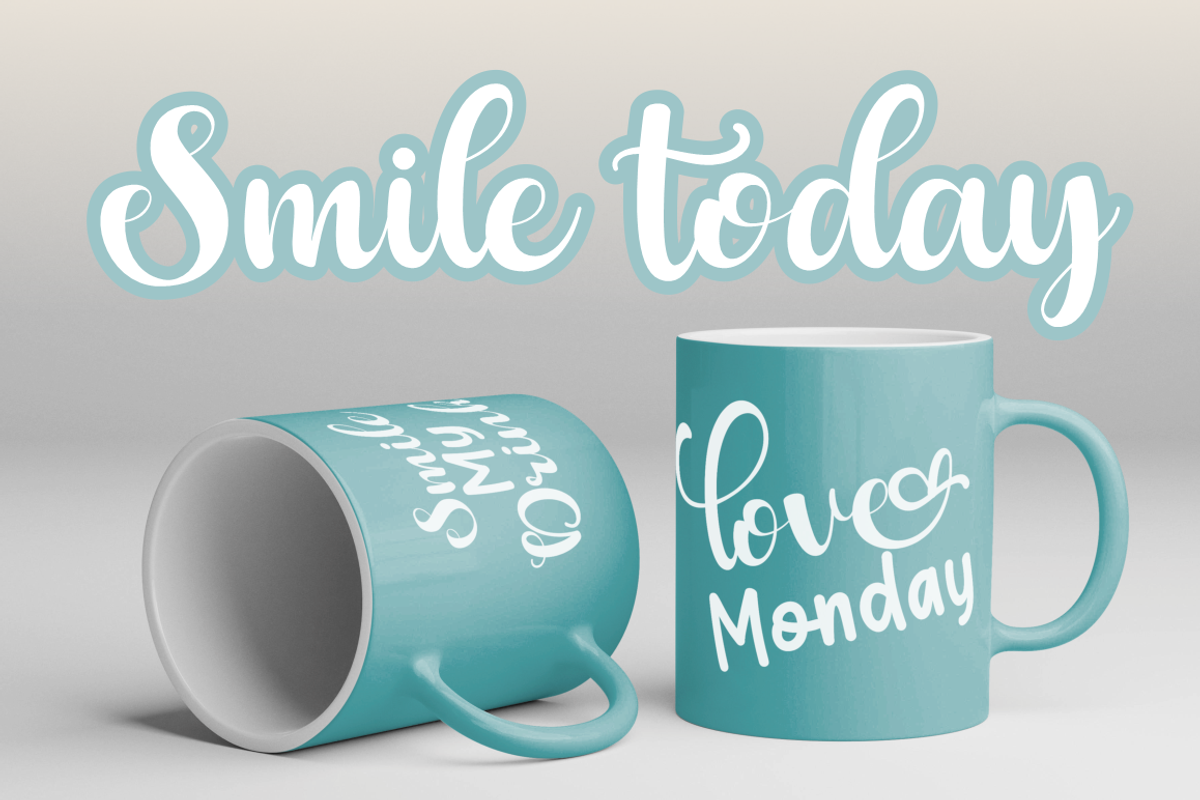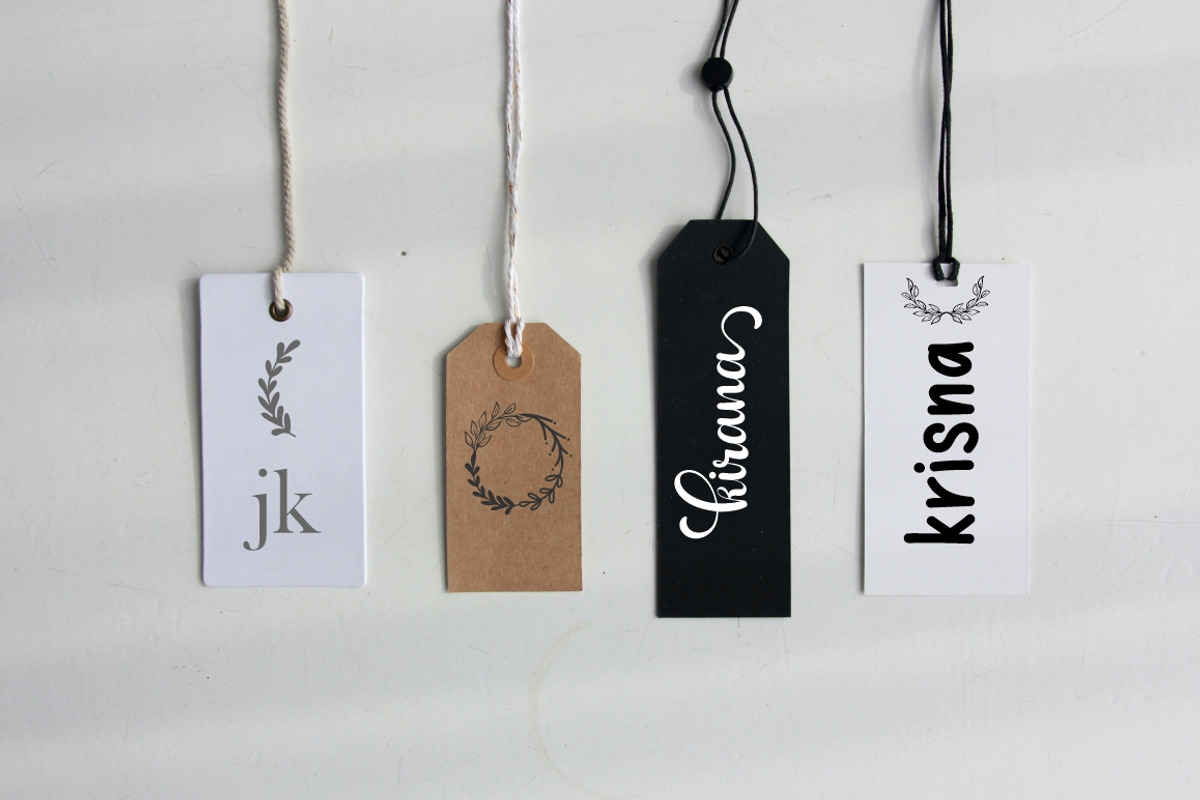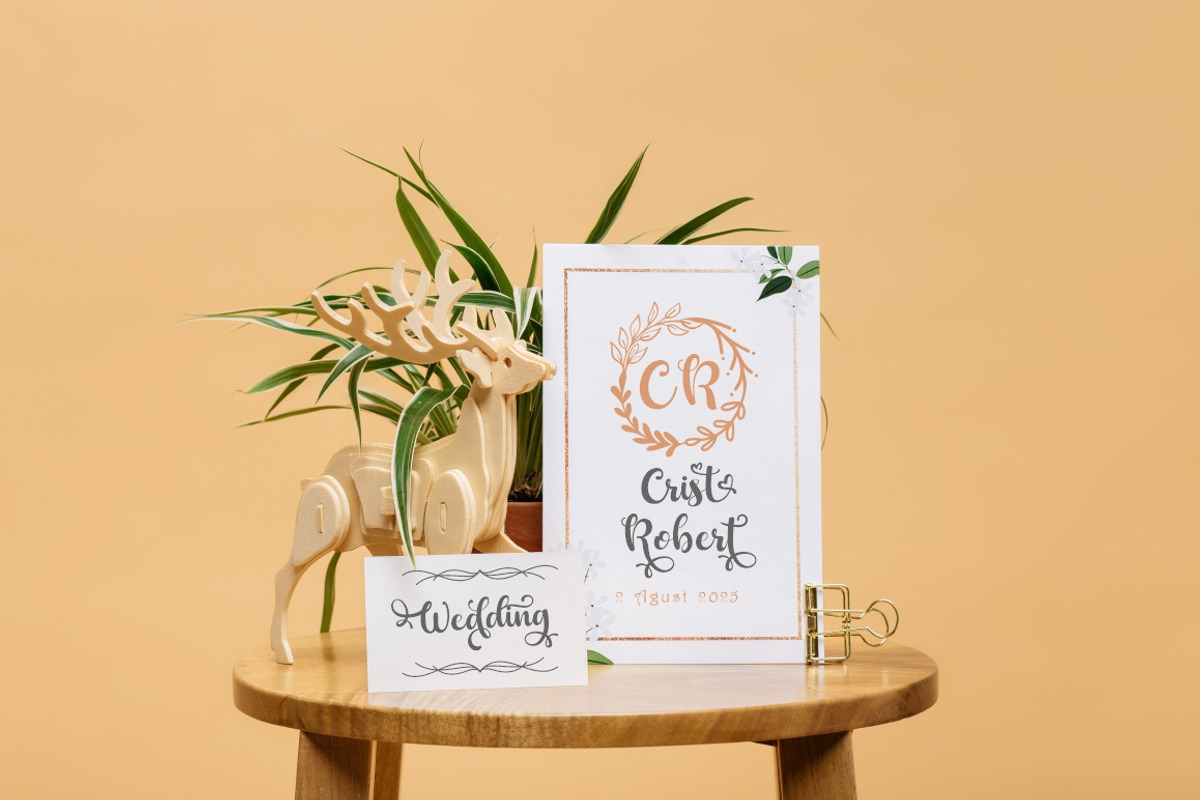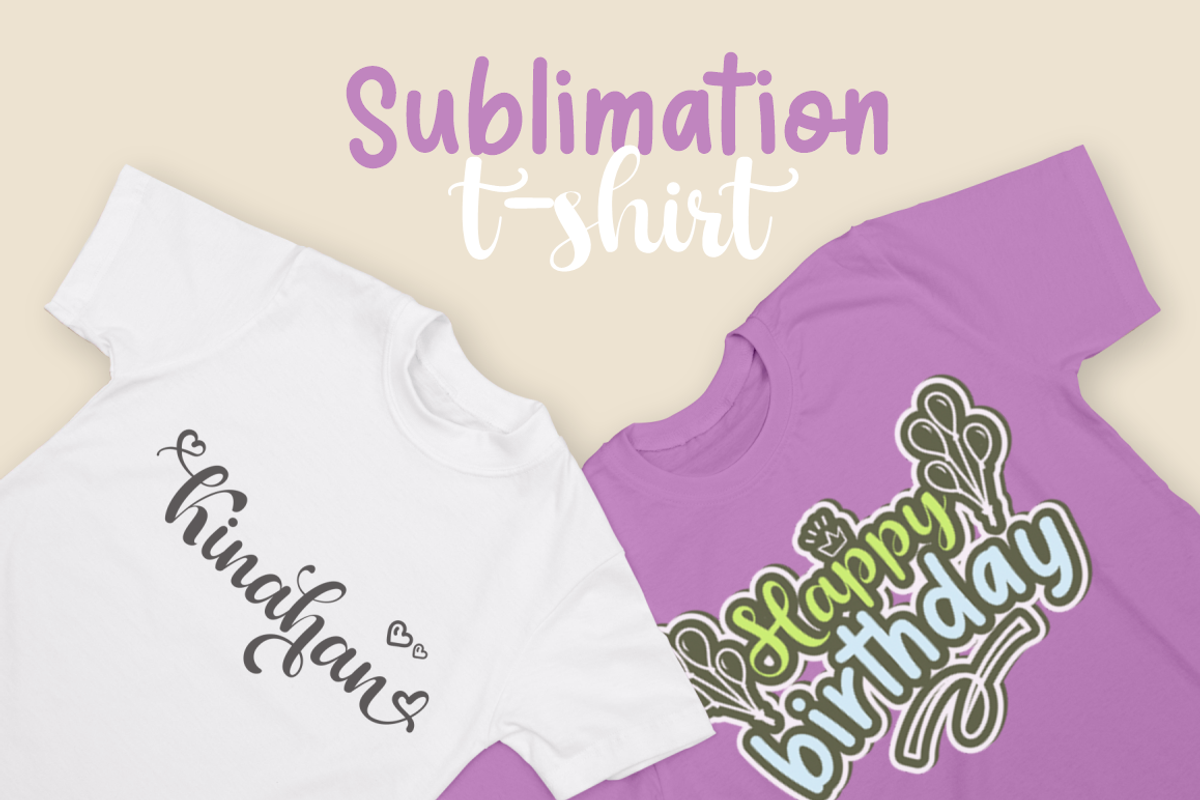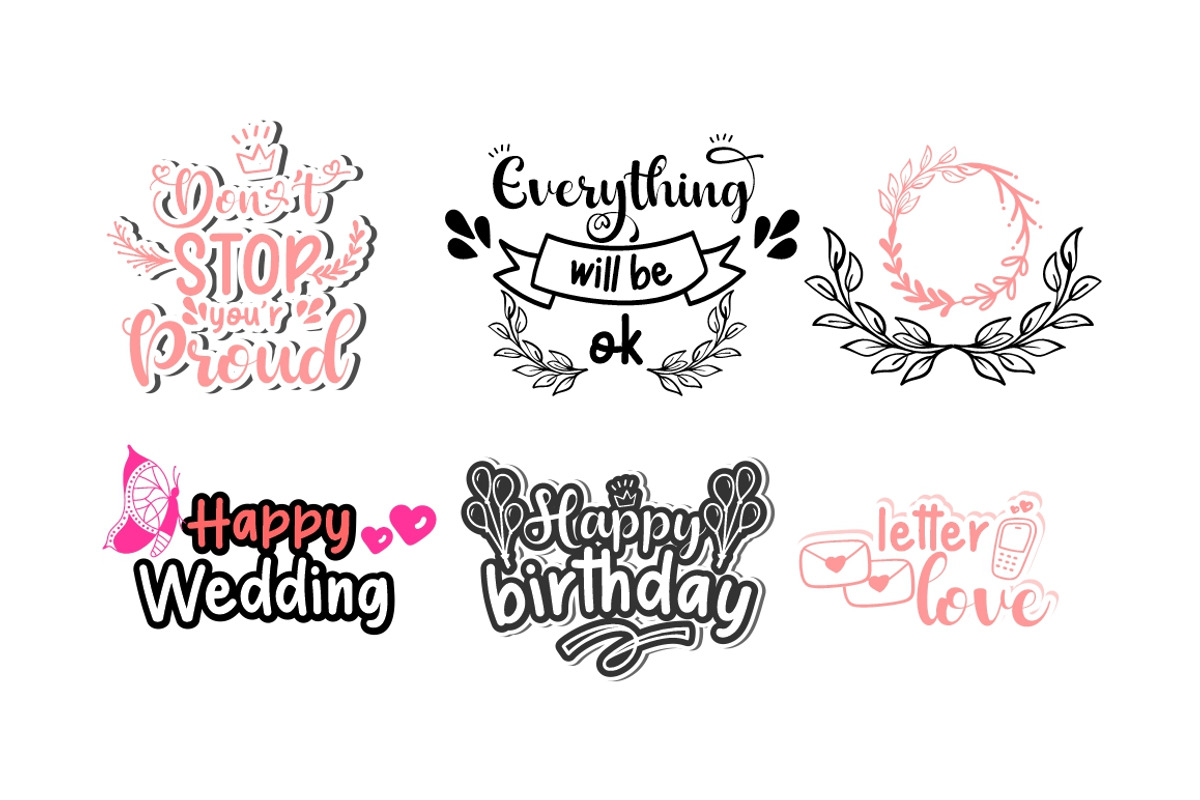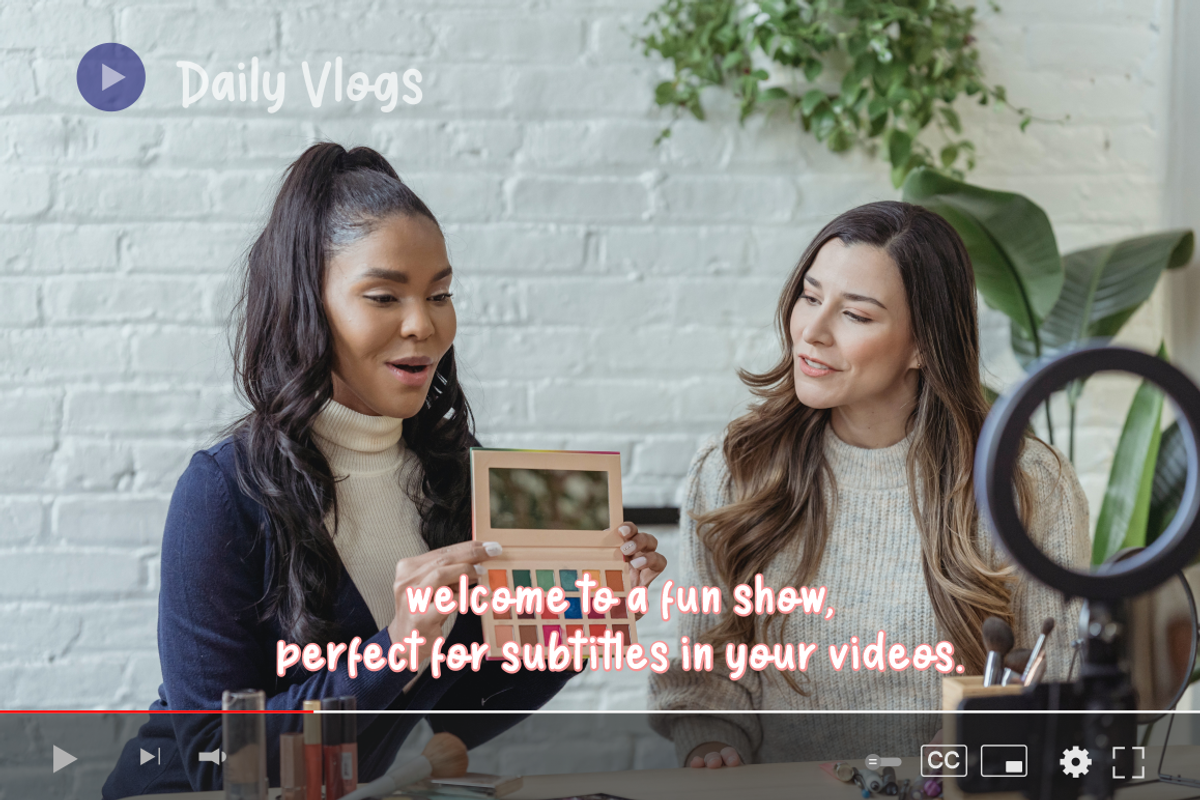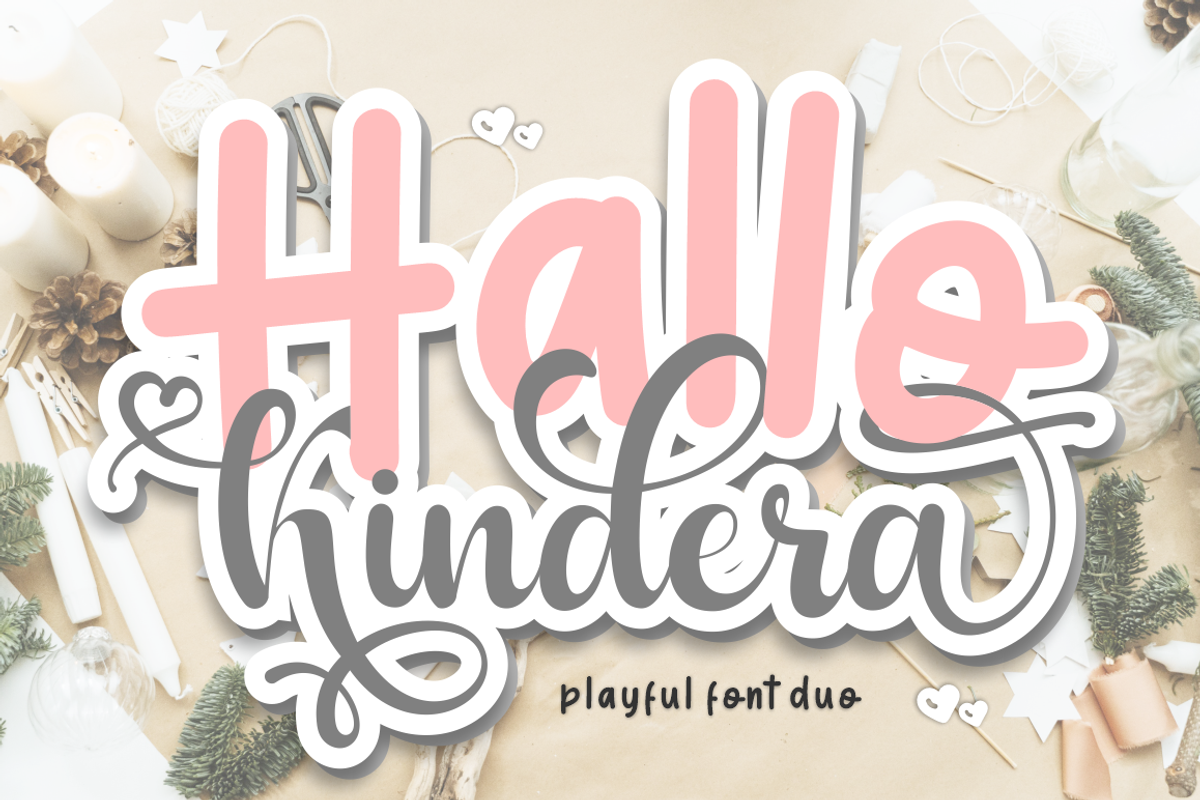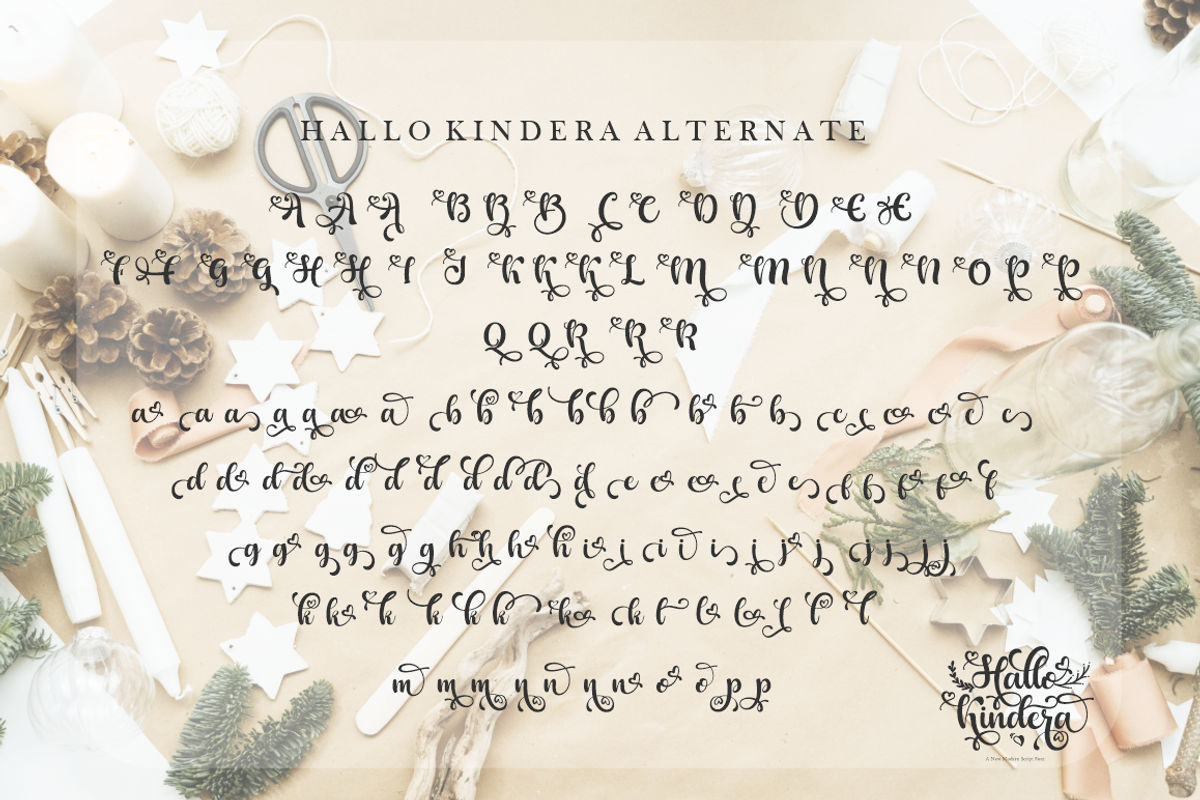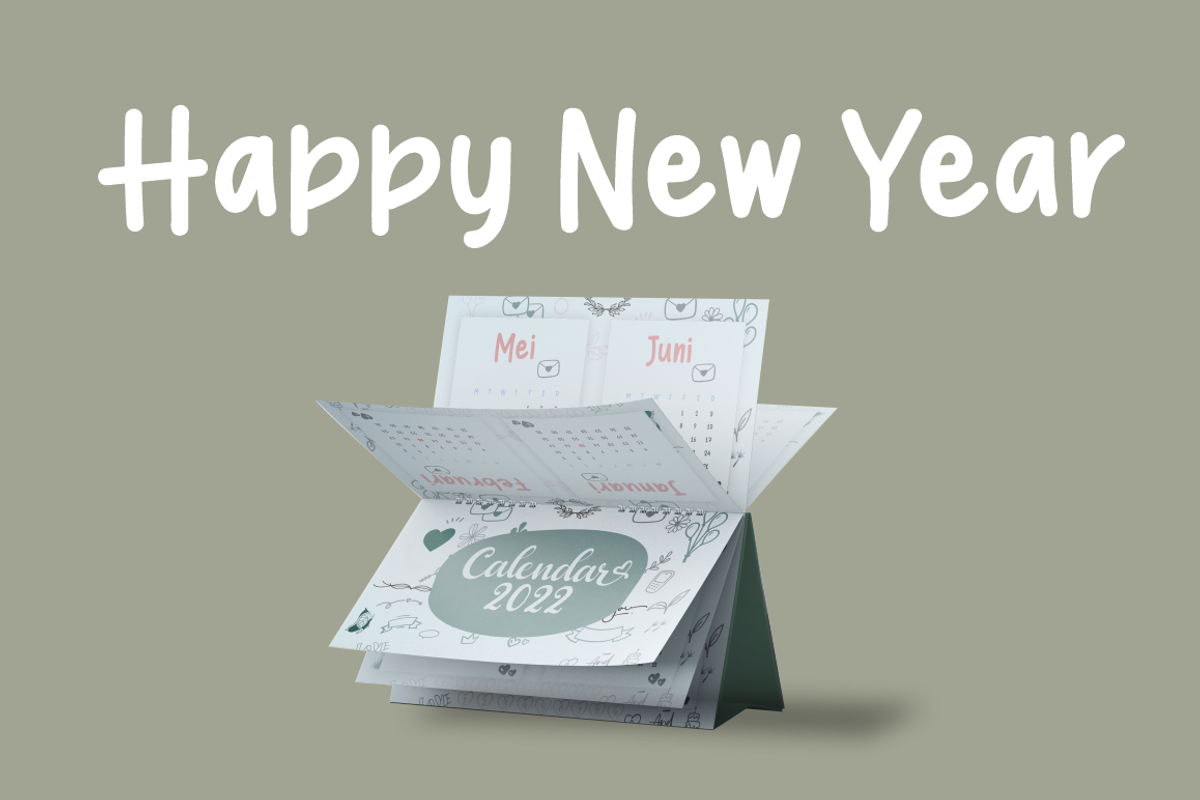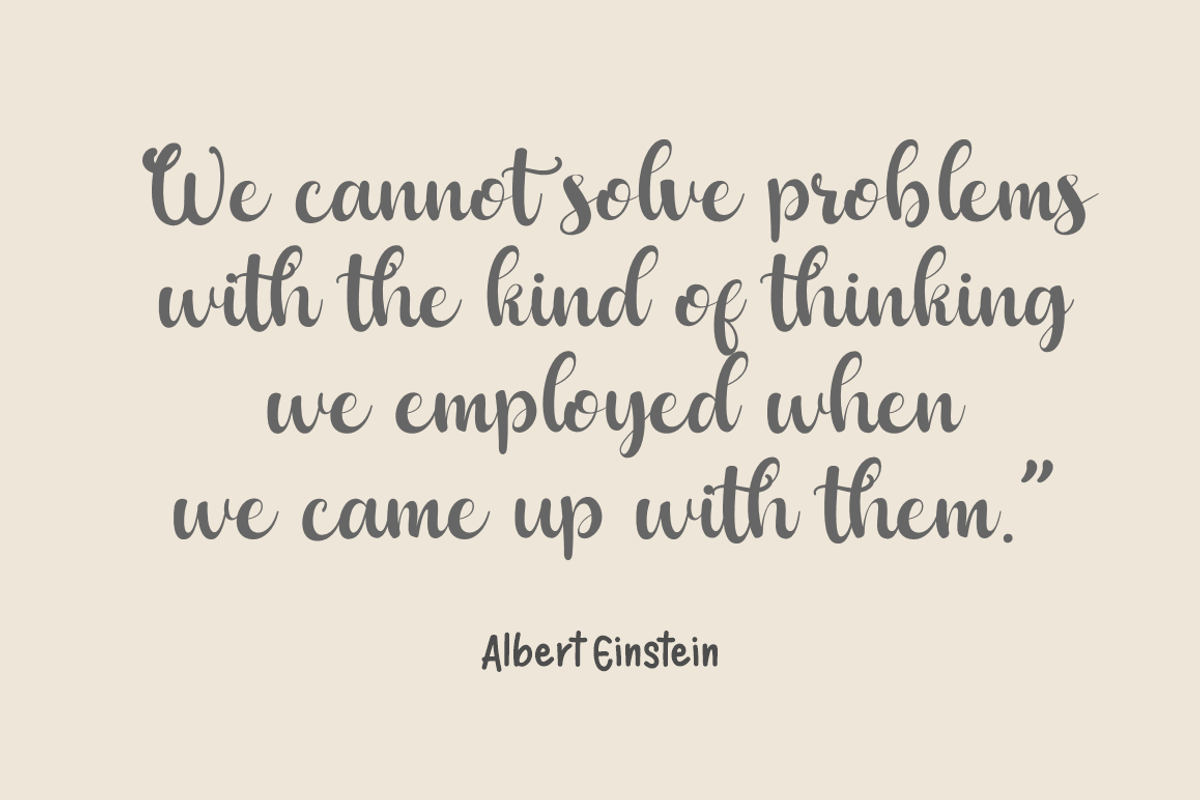
Hallo Kindera
Hallo Kindera is a slick modern craft font with a magical emphasis. very suitable for craft design logos. greeting cards, t-shirts. print design, silhouette design.
Hallo kindera comes with 3 types of fonts
-Hallo kindera script comes with 1-10 alternetes in each letter. This font is designed with love, you can use this font with or without alteration it will still be beautiful.
-Hallo Kindera san a cute and natural handwritten font will be a perfect companion for your designs.
-Hallo kindera doodle This font contains cute characters in each uppercase and lowercase. and also has pretty numbers to display the different letters.
- 1-10 alternetes in each letter